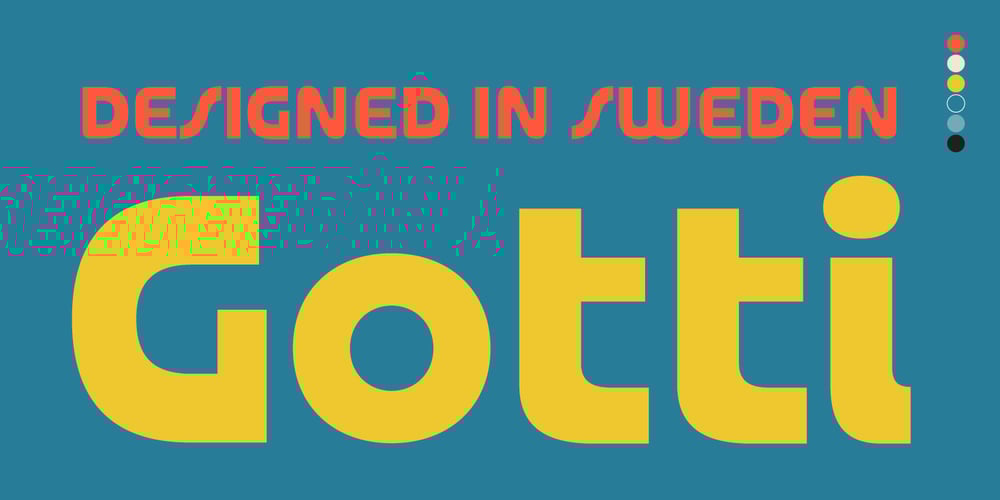
Gotti Font Family was designed by Giuseppe Salerno, Paco González and published by Resistenza. Gotti contains 9 styles and family package options. Introducing Gotti. Where Timeless Precision Meets Seventies FlairWe are thrilled to unveil our latest creation, Gotti font family, born and meticulously crafted during an inspiring journey to Goteborg. This typeface seamlessly fuses the Bauhaus essence with the spirited vibes of the seventies, resulting in a font that’s not just a visual treat but a design experience.Gotti draws its creative fuel from the geometric elegance of the Bauhaus movement, prioritising functional simplicity and razor-sharp lines. However, its design journey doesn’t end there. Imbued with the unmistakable energy of the Seventies, Gotti emerges as a font family that encapsulates both nostalgic charm and contemporary boldness.At its core, Gotti boasts a geometric skeleton that has been intricately designed to redefine precision. Ranging from light to black, the weight variations offer a broad spectrum of expressive possibilities.Gotti is perfect for display use, advertising, and branding, it transforms your creative vision into a visual masterpiece. Stand out with confidence, whether it’s a captivating logo, a compelling headline, or an unforgettable advertisement.Elevate your brand identity with Gotti. It brings strategic branding to life, communicating sophistication and modernity. Your advertising materials become memorable works of art, leaving a lasting impression on your audience.Curious about the magic Gotti can bring to your designs? Our showcase reveals real-world applications, demonstrating its adaptability and aesthetic appeal. See for yourself how this font family turns ordinary designs into extraordinary visual experiences.Follow us on social media for updates, inspiration, and a glimpse behind the scenes. Have questions or just want to share your thoughts? We’re here for you!More About Opentype Features: https://bit.ly/opentype-rsz